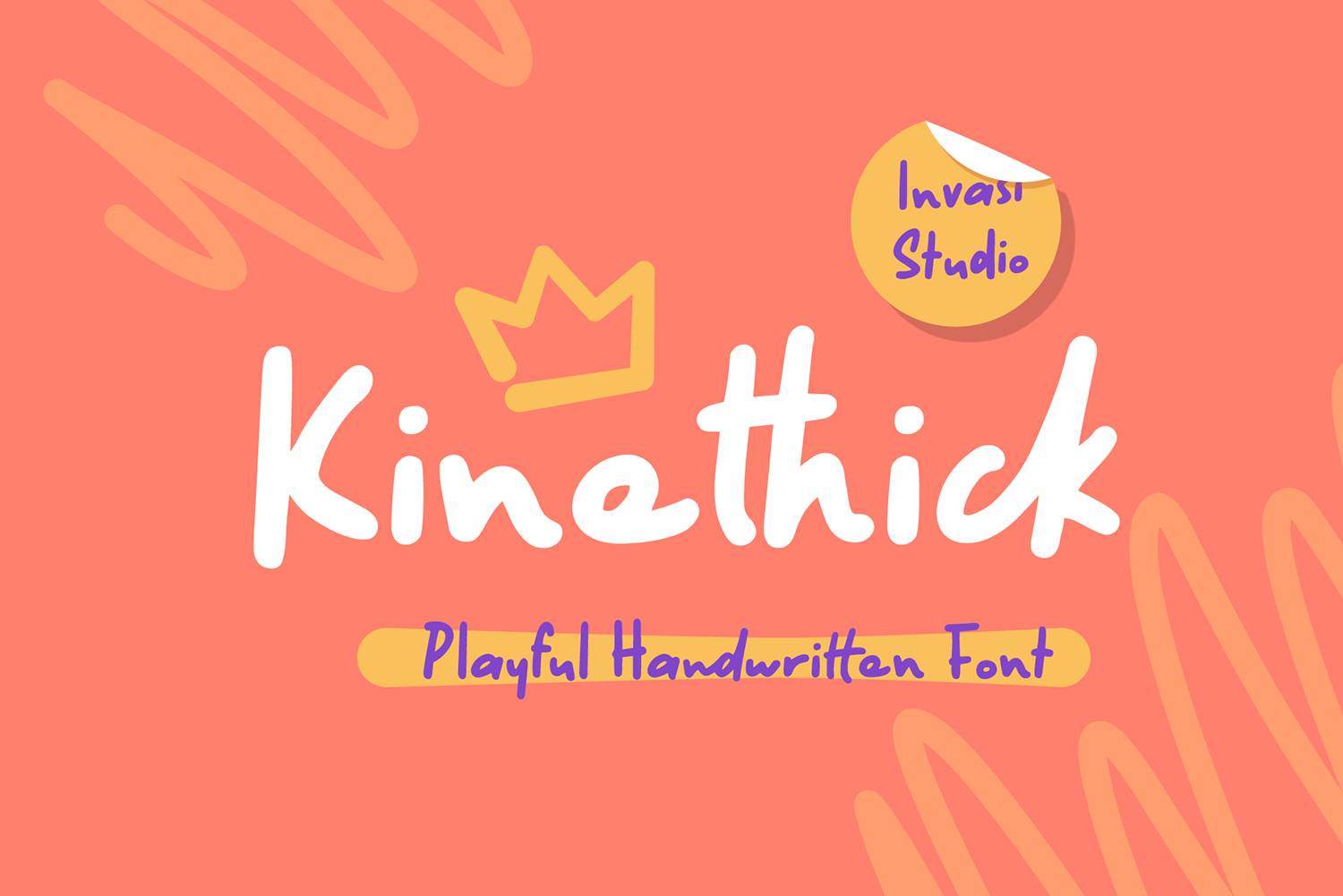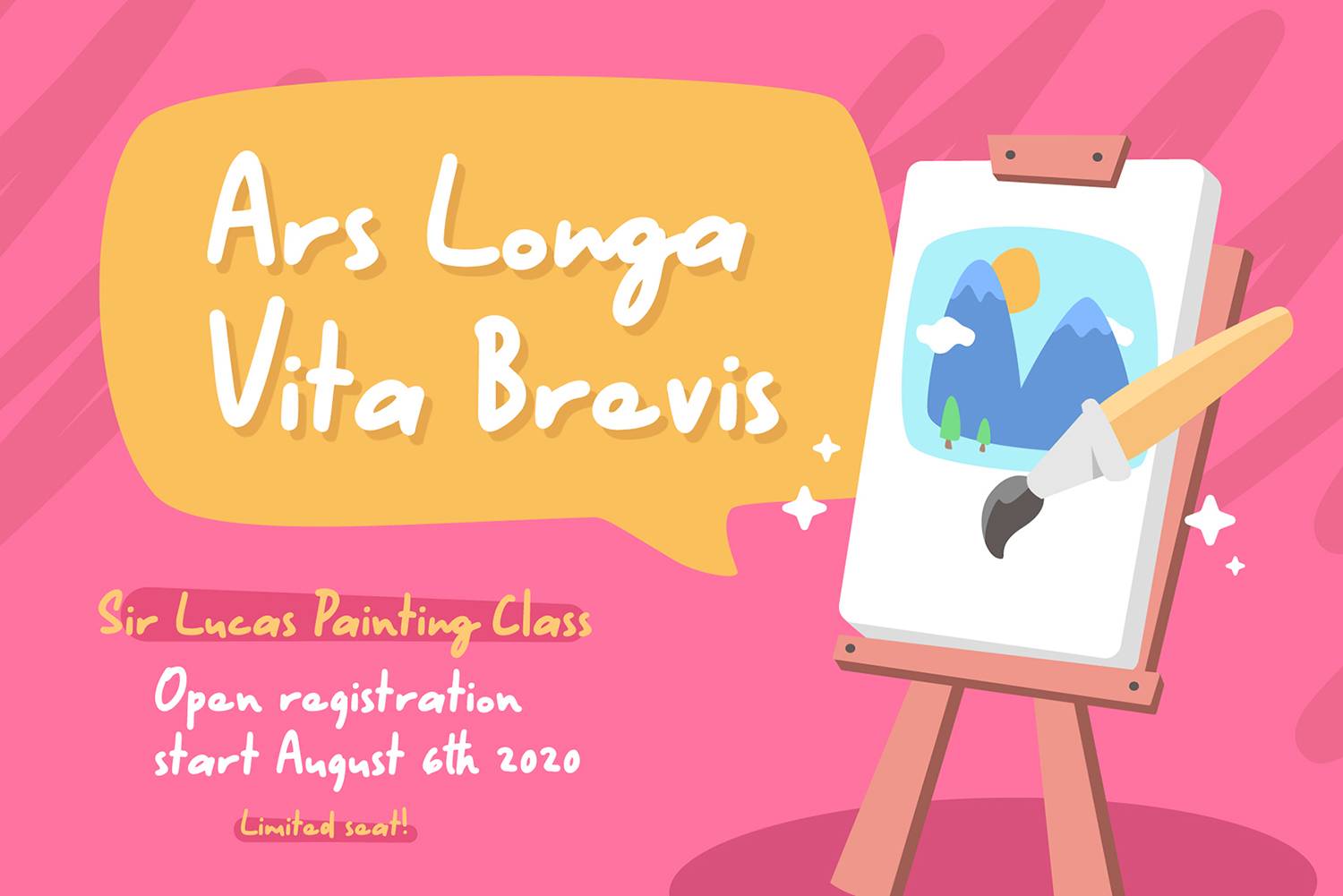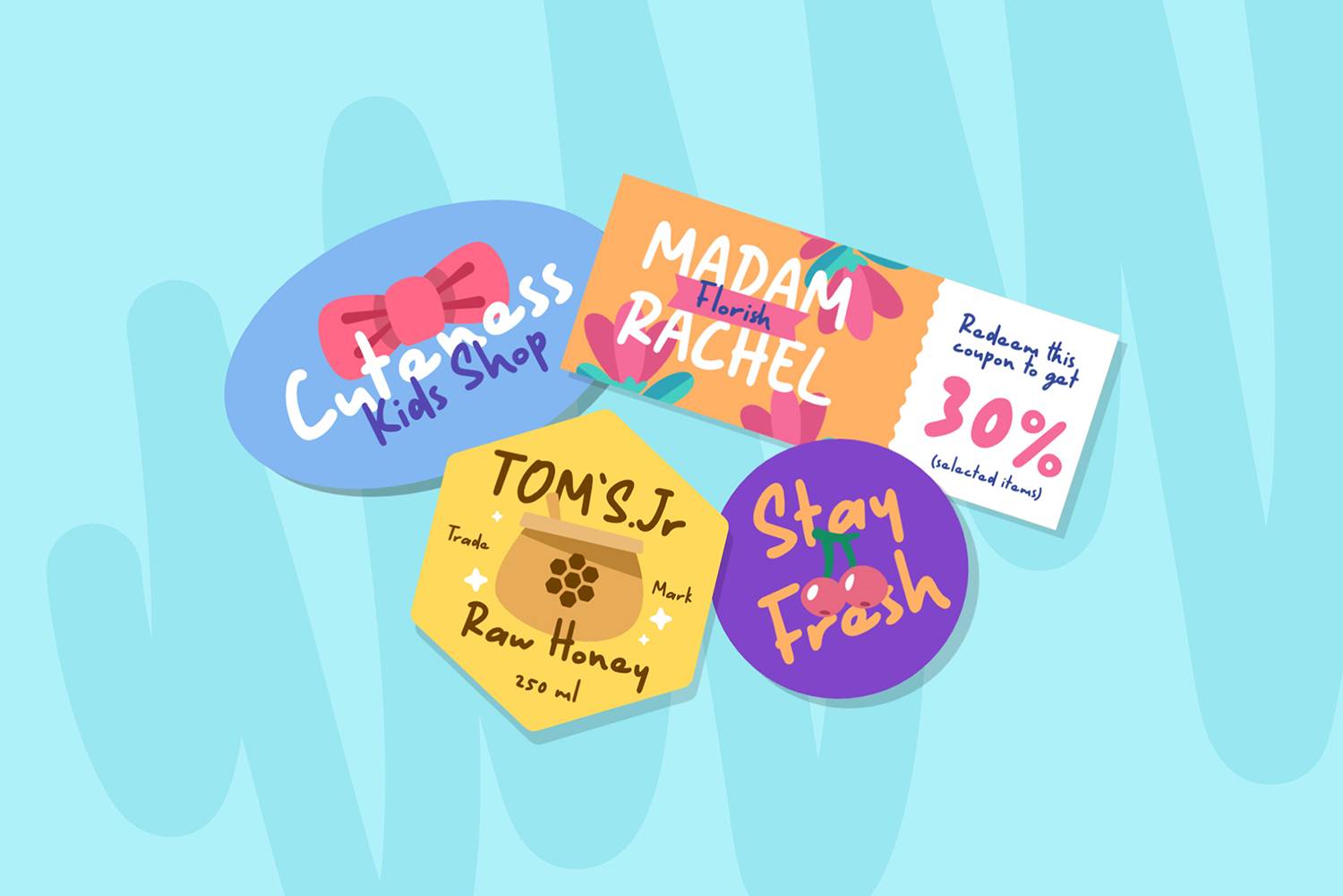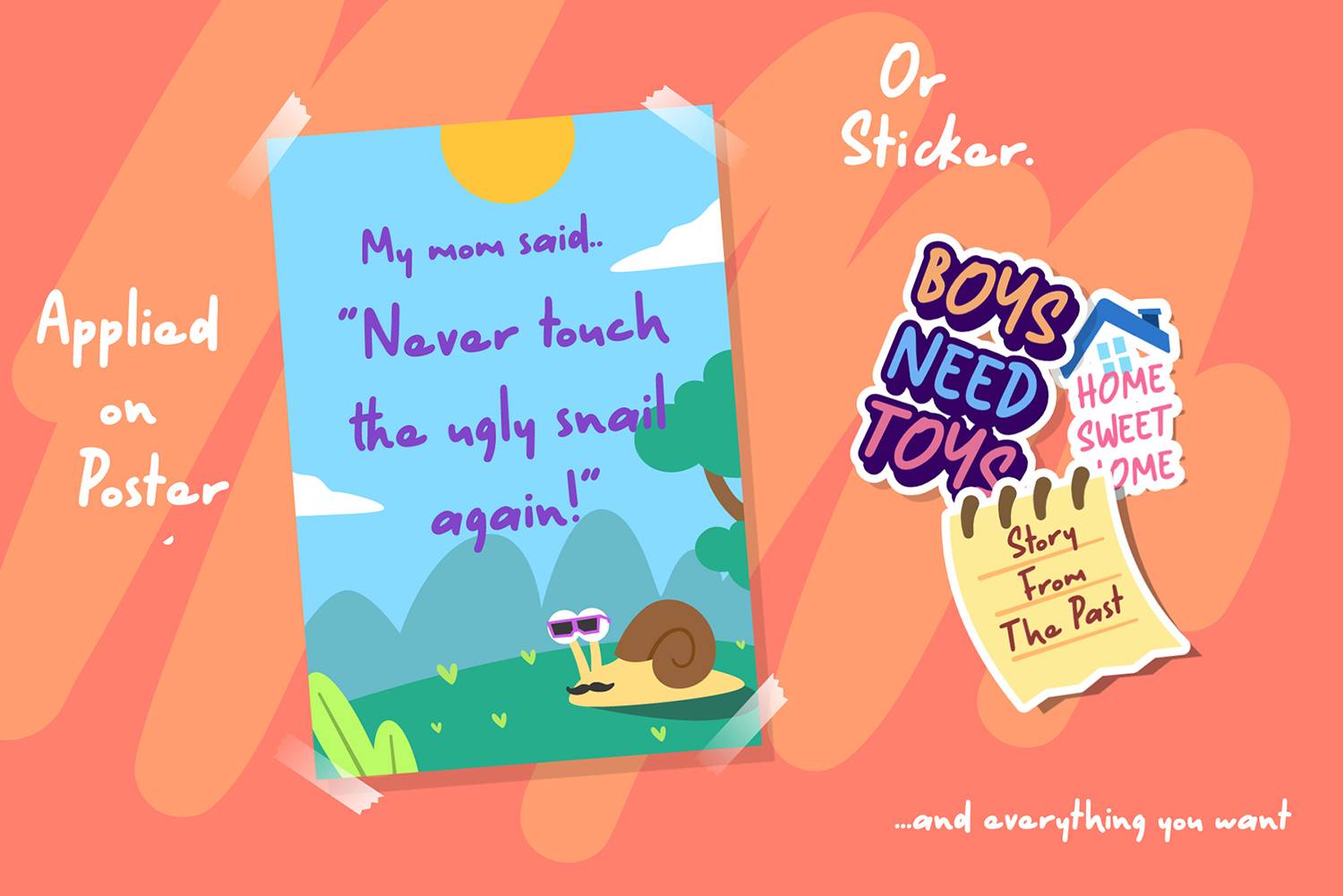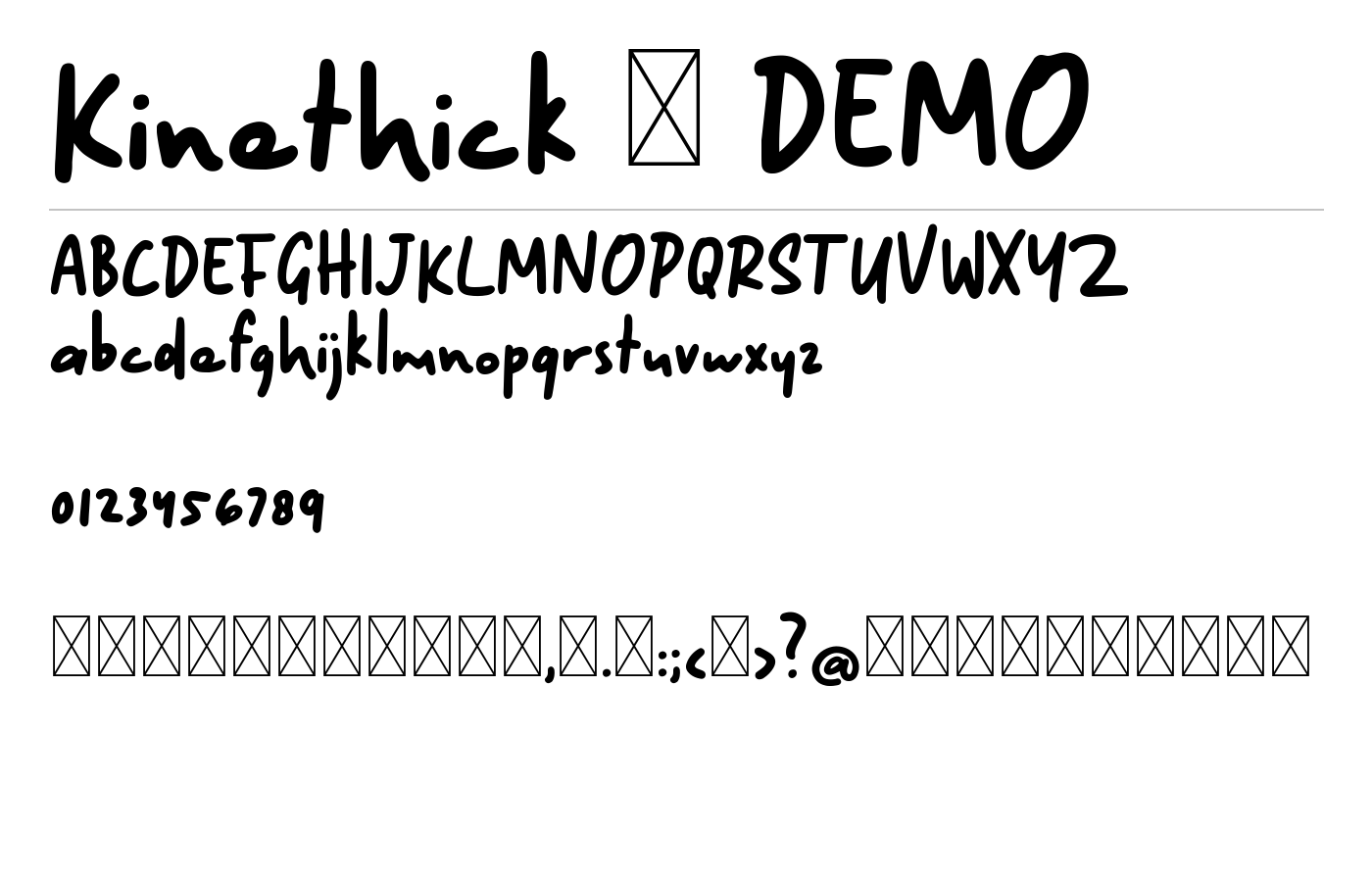
Kinethick is a casual, hand-drawn sans serif font that combines a lively and friendly feel with clear readability. Its rounded, moderately thick strokes and informal letterforms make it perfect for playful branding, creative projects, and approachable headlines that need a personal touch. This font works well in contexts where a warm, human vibe is desired, such as children’s books, invitations, or casual web content.
Kinethick Font